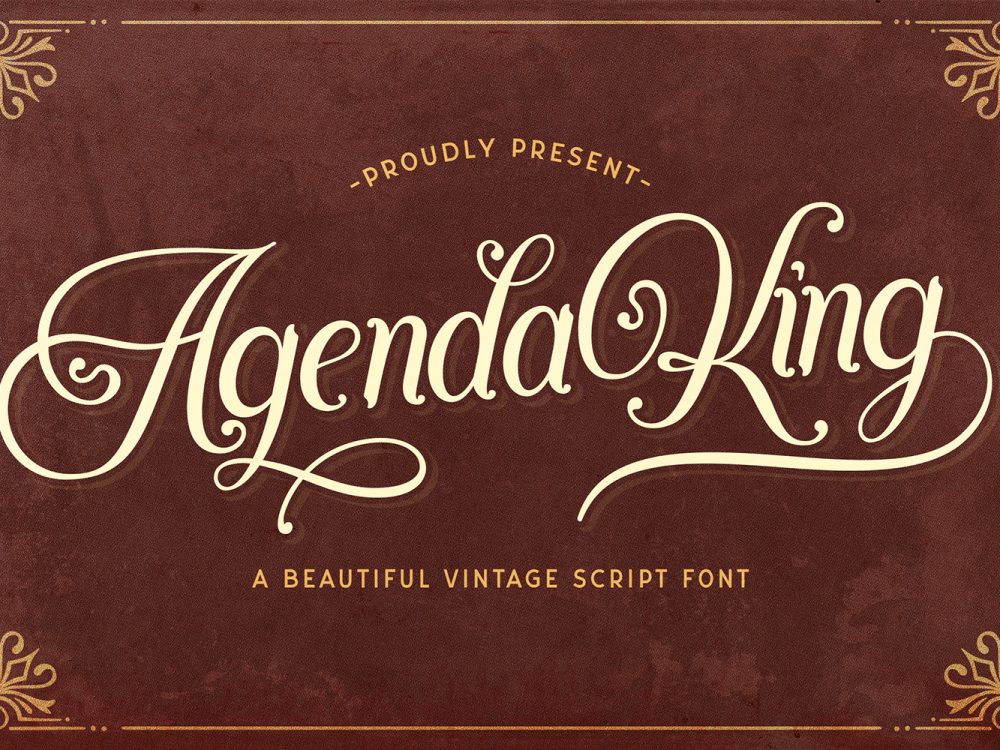
Agenda King Free Font
Agenda King Free Font is a scripted handwritten font that features an elegant style and calligraphic script. This font is very suitable for creating various design projects that require a modern scripting font. You can use this font to create memorable posters, wedding invitations, cards, branding, flyers, and more. If you like it don’t forget to check out the full version.